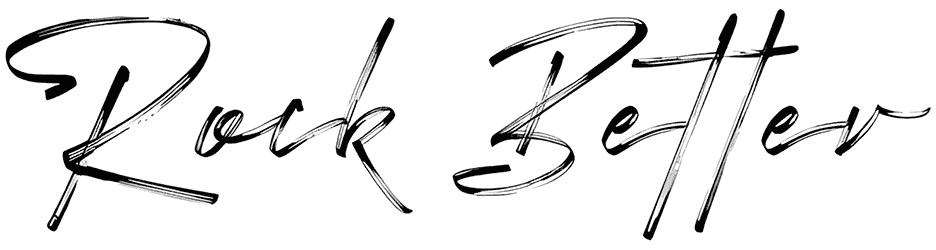
Rock Better Font
With this brush font, Rock Better, you can add creativity to your graphics and make a lot of fun things happen. This dirty-looking tropical script font is great for any display that needs to stand out.